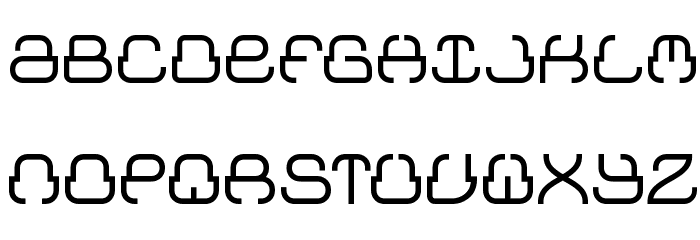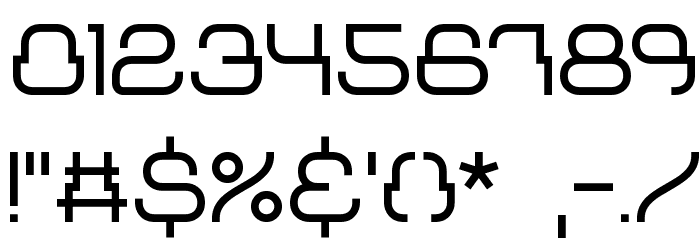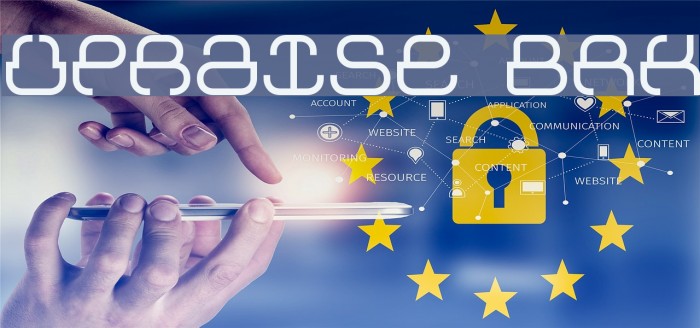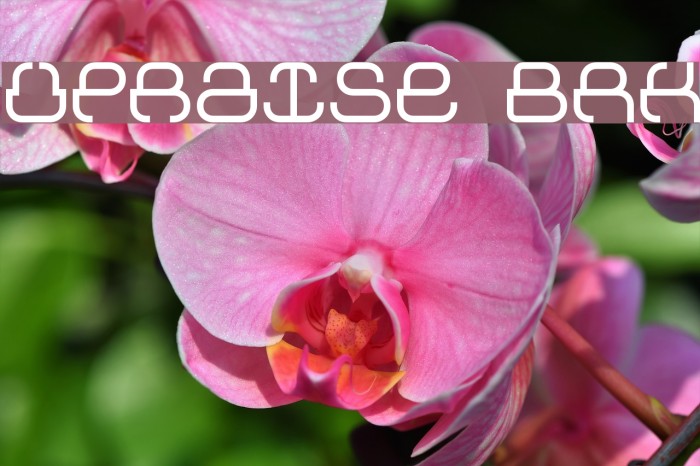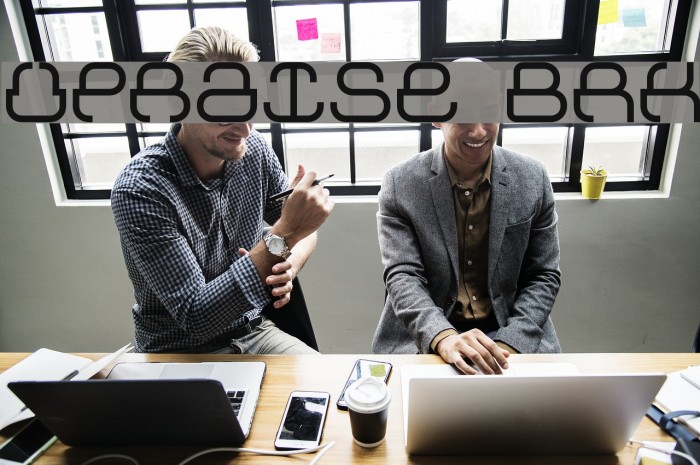
Upraise BRK Font
This font features a unique and futuristic design, characterized by its geometric and modular structure. Each character is composed of bold, rounded lines that create a sense of movement and modernity. The uppercase and lowercase letters maintain a consistent style, with a focus on symmetry and balance. Numbers and special characters are designed to match the overall aesthetic, providing a cohesive look. The font's distinct appearance makes it ideal for projects that require a contemporary and innovative touch.
A futuristic, geometric font with bold, rounded lines and a modular design.